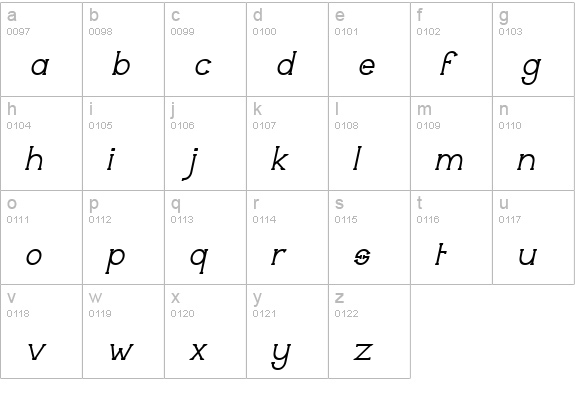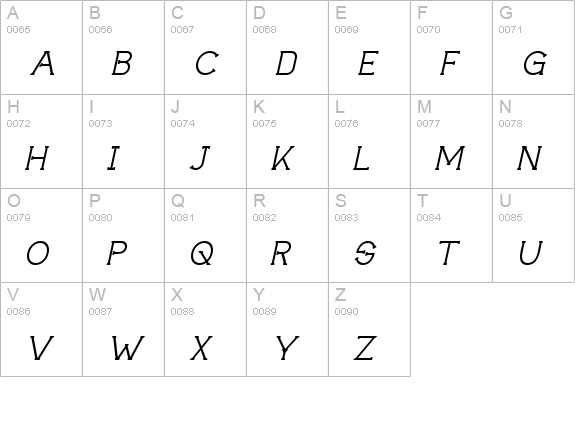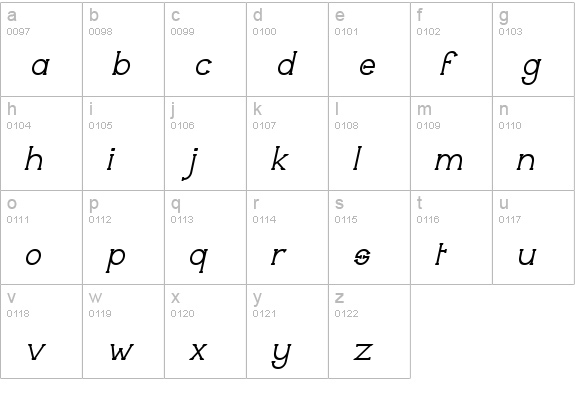
Technically Insane Italic is a distinctive, italic variant in the Technically typeface family \xE2\x80\x94 well suited to design and typography projects.
Introducing Technically Insane Italic, a bold and captivating font that is sure to make a statement. With its unique and edgy design, this font is perfect for those who want to add a touch of madness to their projects. Technically Insane Italic is a font that pushes the boundaries of creativity and embraces the unconventional. Its slanted and twisted letterforms give it a distinct and eccentric look, making it ideal for anything from eye-catching headlines to attention-grabbing logos. This font is not only visually striking, but it also offers versatility and flexibility. Whether you're working on a daring poster, a rebellious album cover, or a quirky website design, Technically Insane Italic will bring your ideas to life and leave a lasting impression. One of the best things about Technically Insane Italic is that it is freely available to download at FontsMarket.com. Yes, you read that right – this extraordinary font can be yours without spending a penny. So, why wait? Embrace the madness and let your creativity run wild with Technically Insane Italic. Download it now and unleash the power of this one-of-a-kind font on your projects.